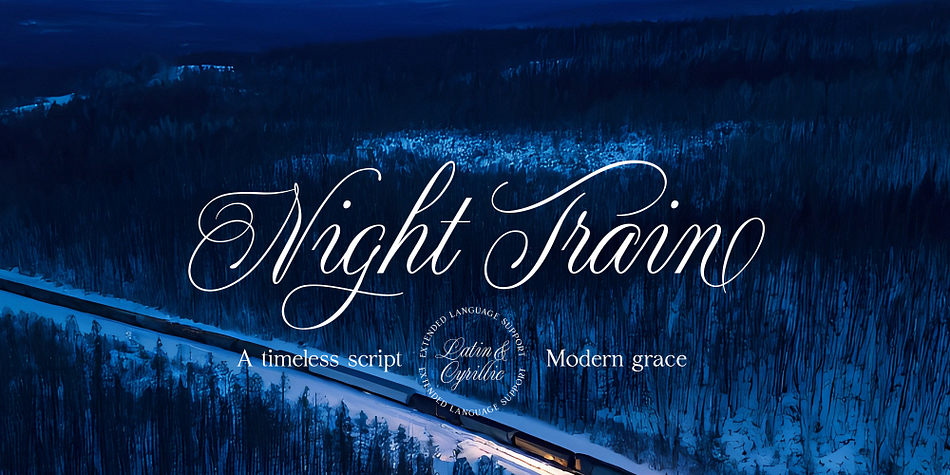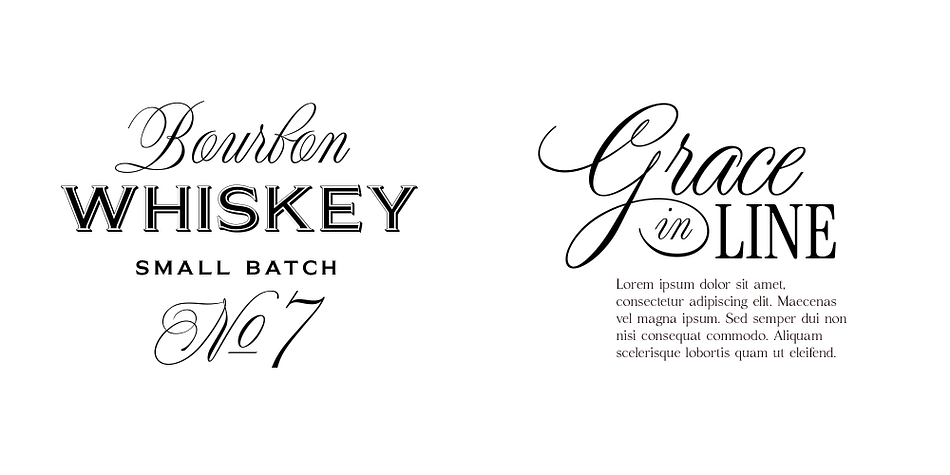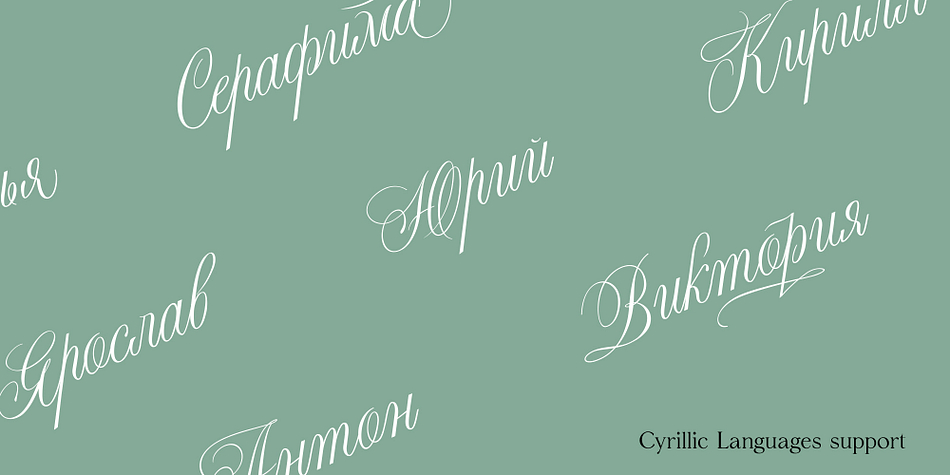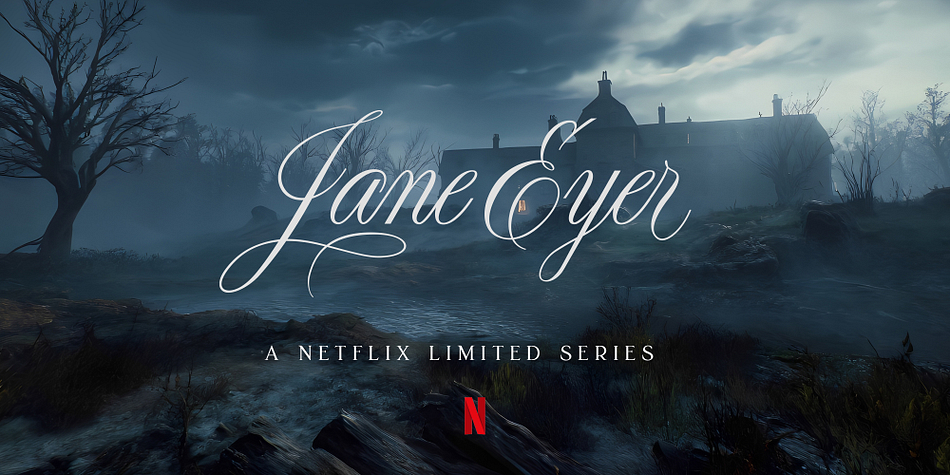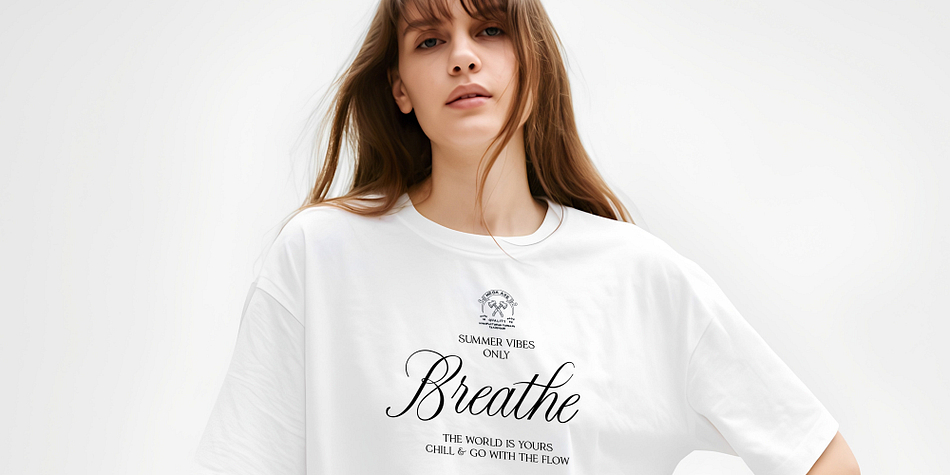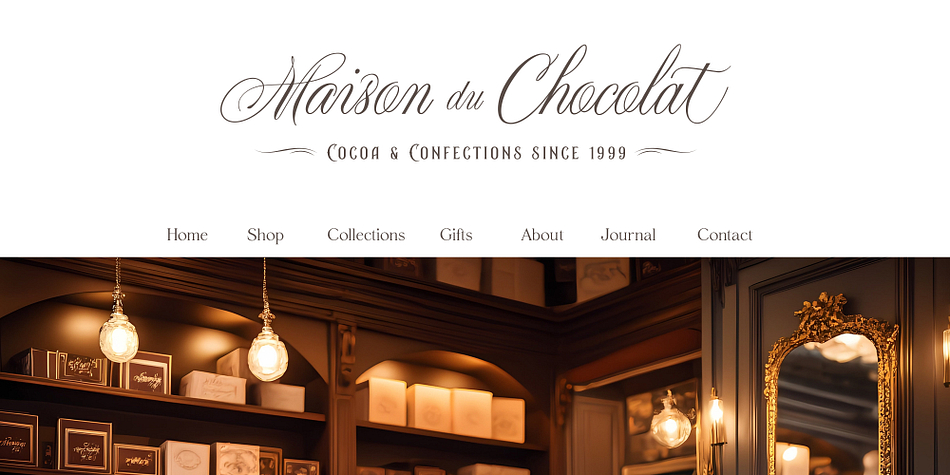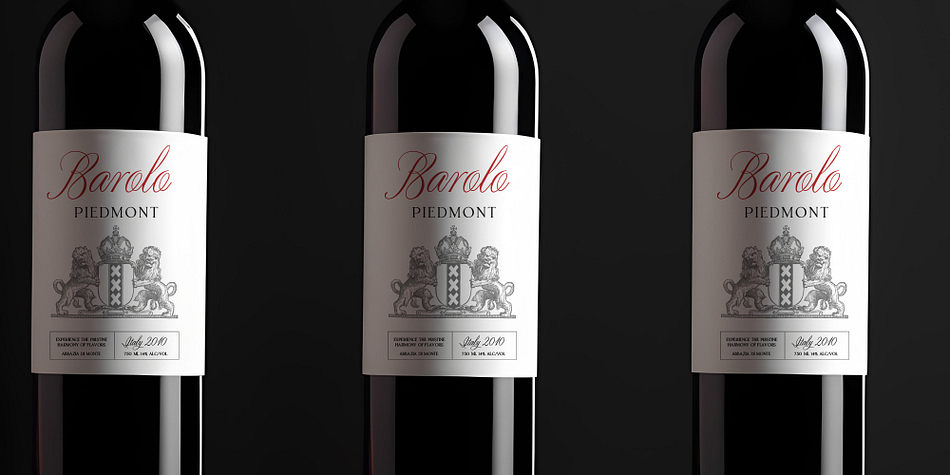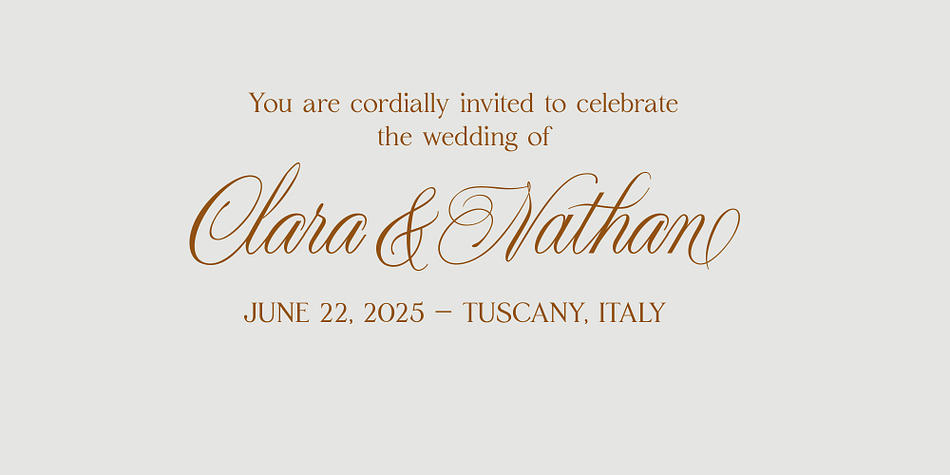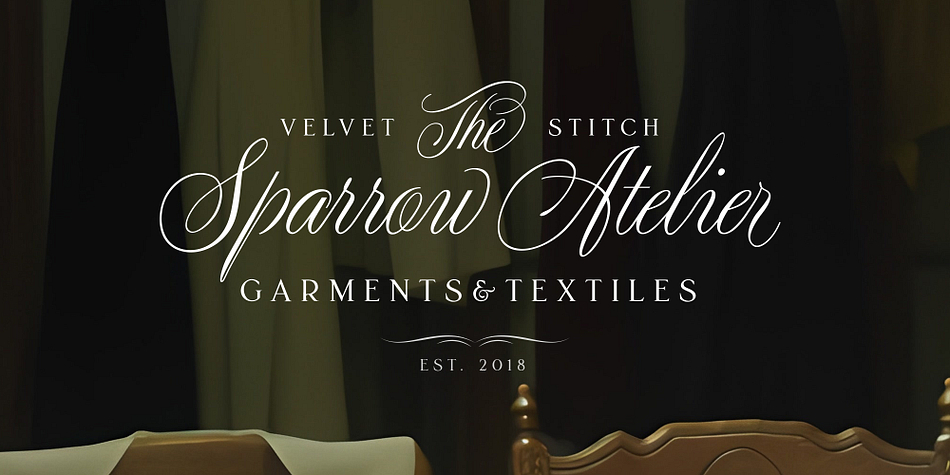
Night Train
Designed by Aleksey Ivanov, Night Train is a script font family published by vatesdesign.
Night Train Script is a refined calligraphic typeface inspired by classic pointed pen handwriting, offering a rare balance of elegance, rhythm, and everyday readability.
Unlike many handwriting-inspired fonts, Night Train is clean and legible. Its smooth flow and carefully drawn letterforms bring a sense of authenticity and sophistication to any project.
The typeface includes an extensive set of stylistic alternates and ligatures, allowing you to personalize your design with subtle or dramatic flourishes. With support for both Latin and Cyrillic alphabets, Night Train Script is well-suited for multilingual branding, packaging, and editorial use.
Whether you’re designing wedding invitations, vintage labels, product packaging, or elegant editorial titles, Night Train gives you the expressive power of hand lettering — without sacrificing clarity.